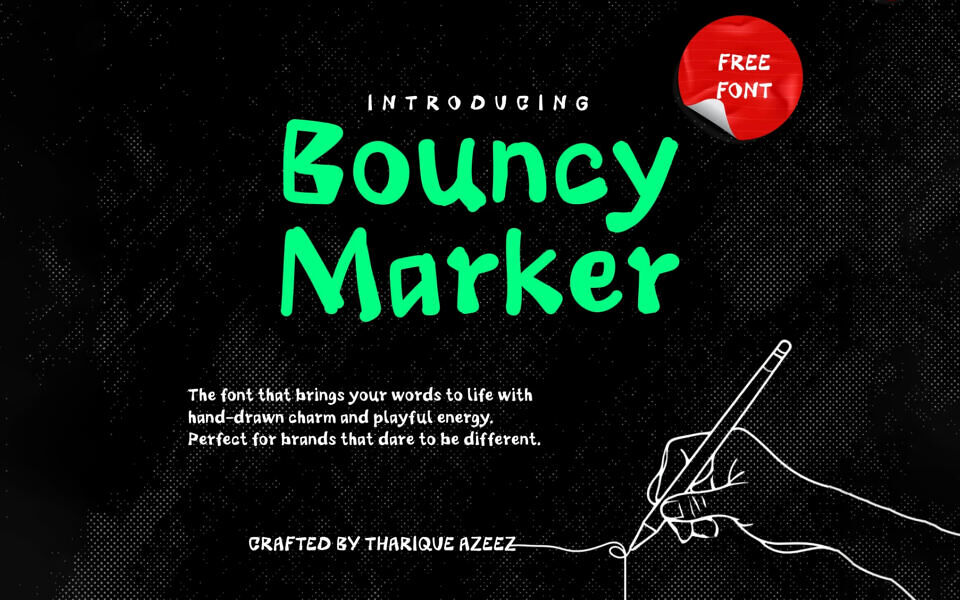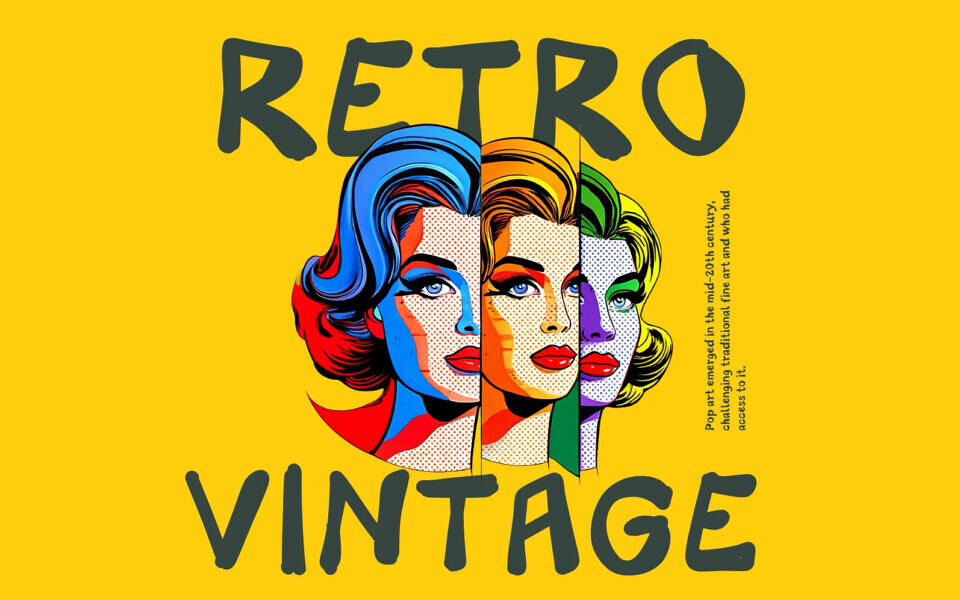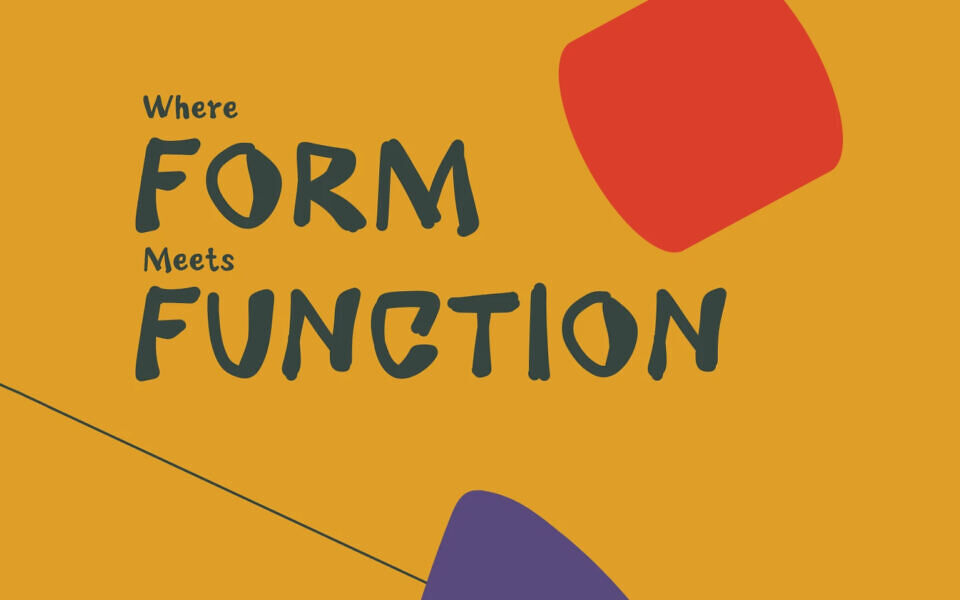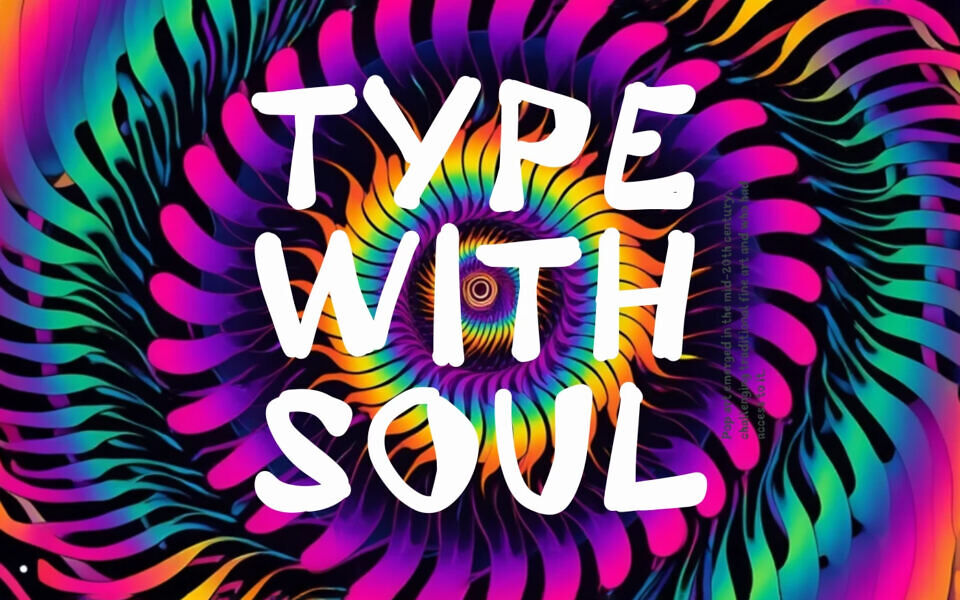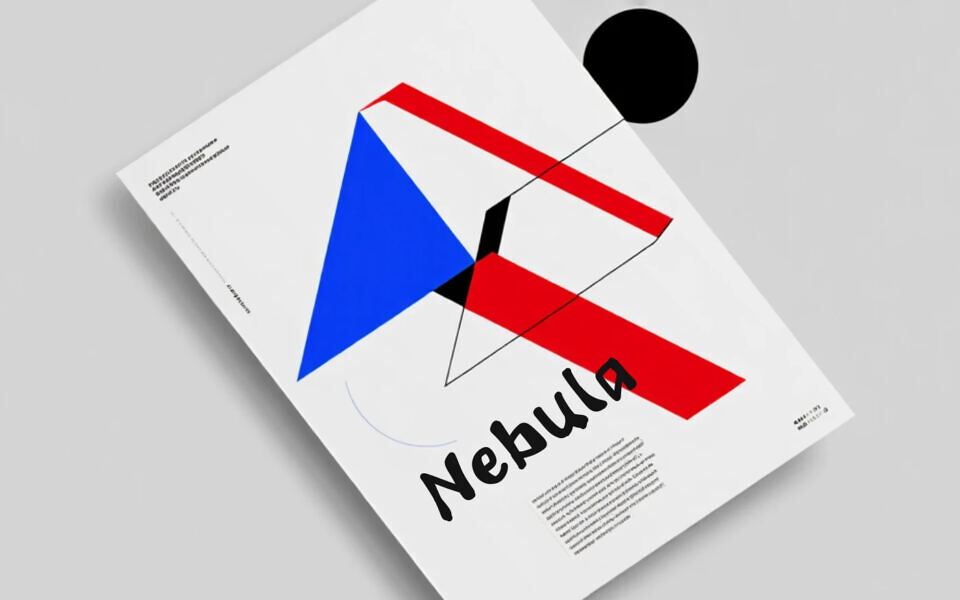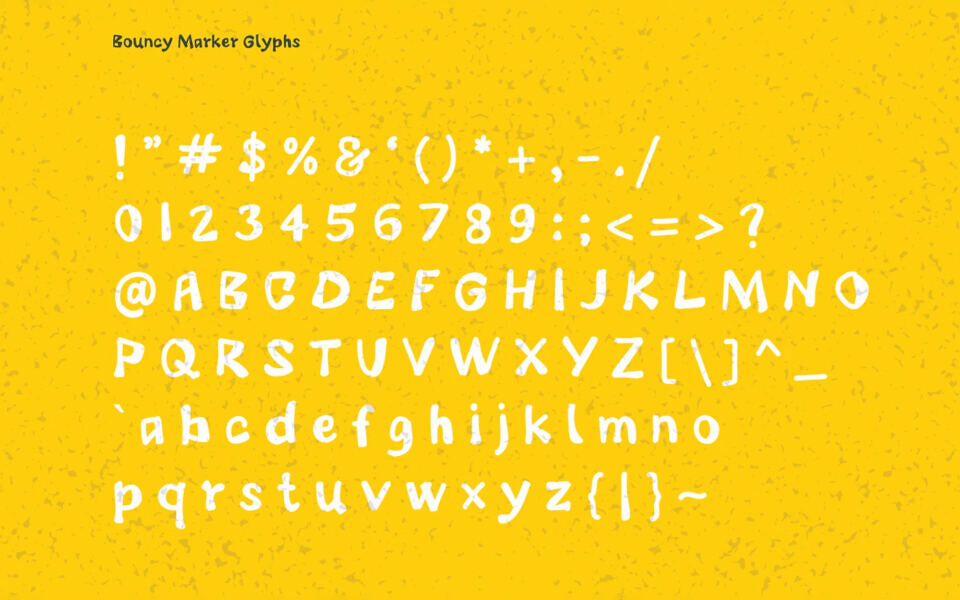
Created by designer Tharique Azeez, Bouncy Marker captures the authentic charm of hand-drawn lettering with its organic curves, playful wobbles, and friendly personality.
This unique display font transforms ordinary text into engaging, memorable typography that connects with audiences on an emotional level.